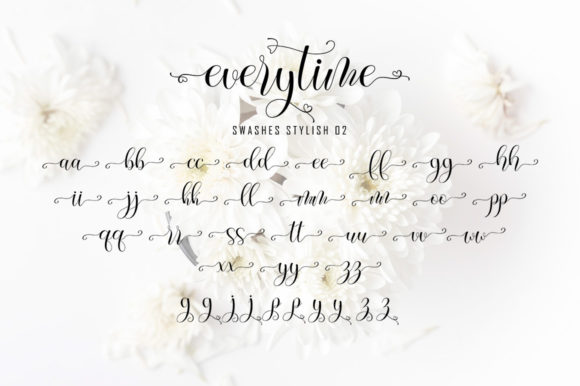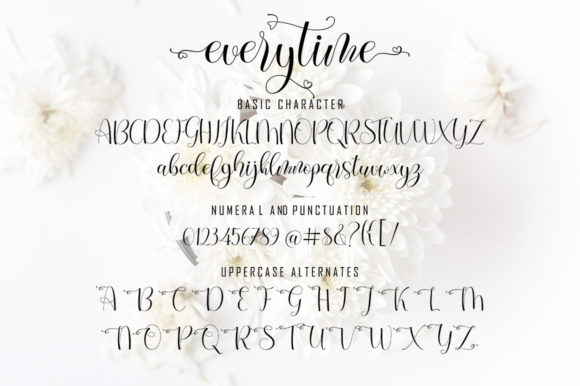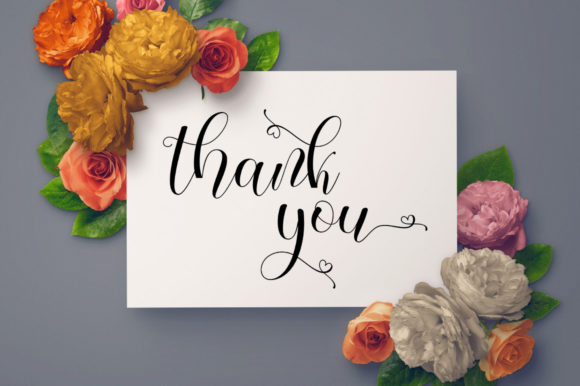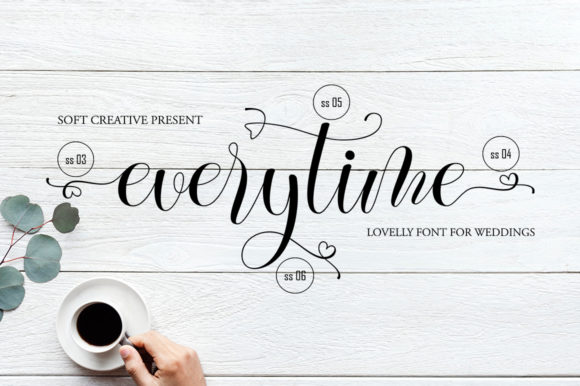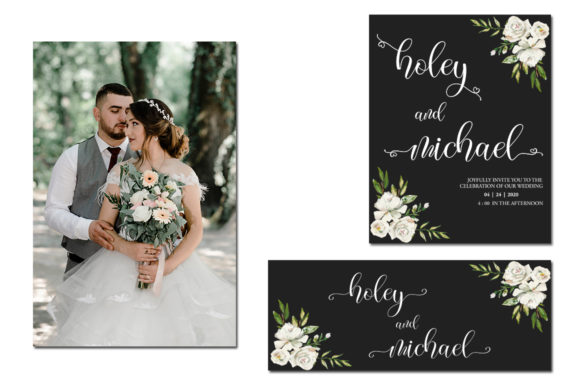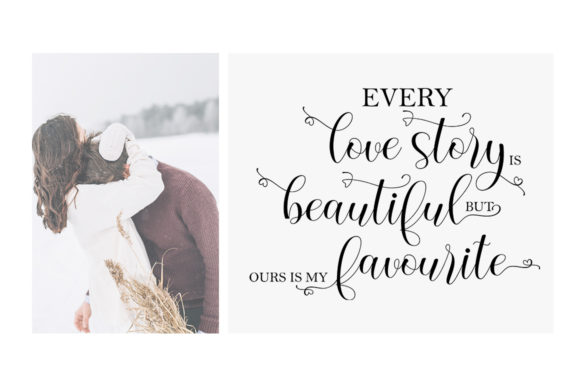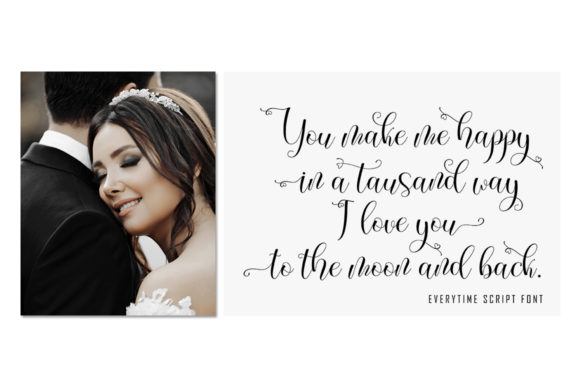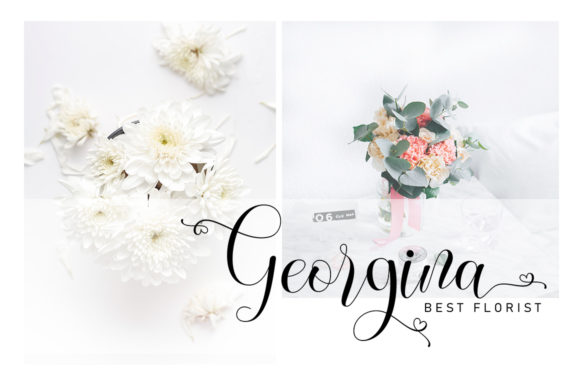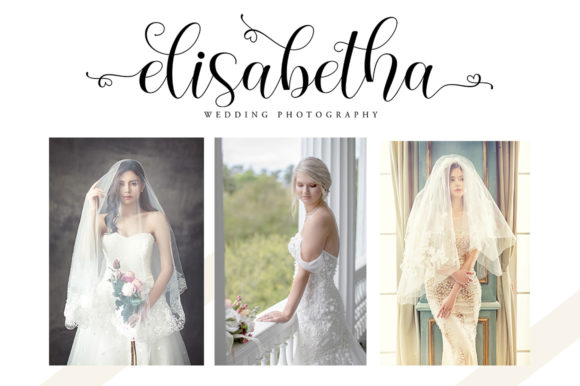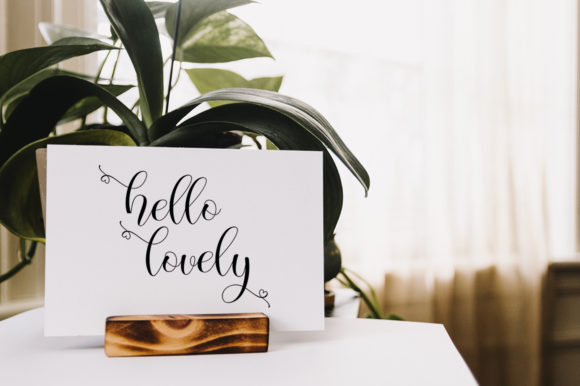
Everytime Font
About Everytime Font
Everytime is a sweet, soft hand-lettered script. The playful rounded characters make it the perfect font for creating stunning calligraphy art. Everytime comes packed with gorgeous swashes, that will allow you to add a decorative touch within seconds. Get inspired by its authentic feel and use it to create gorgeous wedding invitations, beautiful stationary art, eye-catching social media posts, and cute greeting cards.
This font is PUA encoded which means you can access all of the dazzling glyphs and swashes with ease! It also features a wealth of special features including alternate glyphs and ligatures.